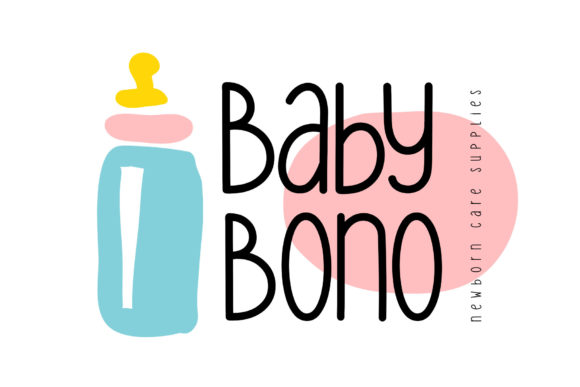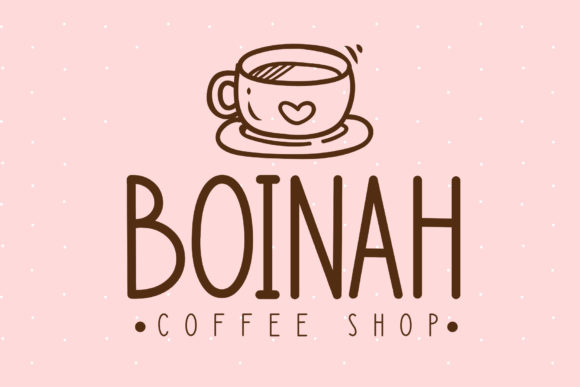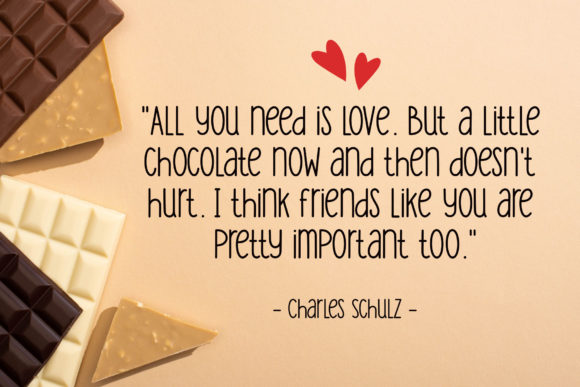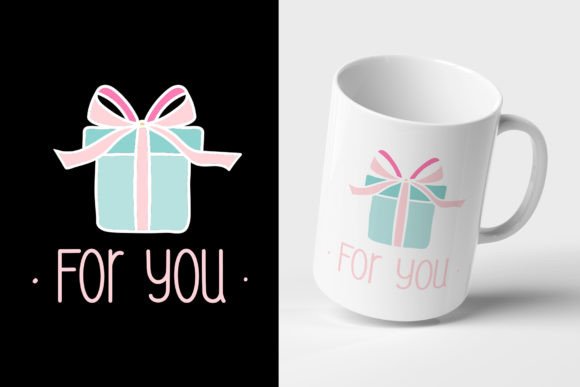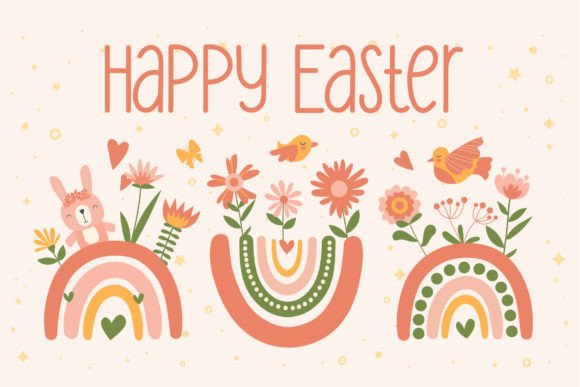
Introduction to Emily Cute Font
Have you ever stumbled upon a font that instantly brightens up your design and makes you feel like a kid again? That’s exactly what happens when you meet the adorable Emily Cute Font. This charming sans serif font is a game-changer for any creative project, from blog posts to branding and invitations. Its playful and joyful vibe makes it an instant favorite among designers.
As a designer, you’re always on the lookout for high-quality fonts that can elevate your designs and make them stand out. The Emily Cute Font is a valuable addition to your design resource library, offering a free download with a transparent background that makes it easy to use in any project. Its ease of reading and versatility make it an excellent choice for various applications.
Key Features of Emily Cute Font
- High-quality design resource perfect for creative projects, ideal for digital use.
- Transparent background option for seamless integration into your design.
- Unique, cute, and playful font style suitable for children’s books, cartoons, and other creative projects.
- Includes multiple font sizes and resolutions for optimal use in various design applications.
Honest Review: Emily Cute Font
As a designer, I’m always on the lookout for high-quality design resources to elevate my creative projects. The Emily Cute Font is one such resource that caught my attention. Let’s dive in and see what it has to offer.
- Adorable and whimsical design style that’s perfect for children’s books, nursery decorations, or any project that needs a touch of sweetness.
- High-quality font that’s crisp and clear, even at larger sizes.
- Transparent background option for easy use on any design background.
- May not be suitable for professional or corporate projects due to its playful design style.
- Limited character set, which may require additional font combinations for more extensive text.
Overall, the Emily Cute Font is a lovely addition to any designer’s toolkit. While it may have some limitations, its unique design style and high-quality rendering make it an excellent choice for creative projects that require a touch of whimsy.
Tips for Getting the Most Out of Emily Cute Font
Use Emily Cute Font for invitations, greeting cards, or other creative projects that require a playful touch.
Emily Cute Font is perfect for:
Invitations and greeting cards
Social media graphics
Blog posts and articles
Alternatives to Emily Cute Font
Pacifico is a beautiful, elegant font perfect for creative projects that require a touch of sophistication. It’s ideal for use in branding, logos, and titles that need a high-quality, elegant look. Pacifico is a free download and can be used with a transparent background, making it versatile for various design applications.
Compared to Emily Cute Font, Pacifico has a more refined and sophisticated feel, making it suitable for a wider range of design projects, from weddings to high-end branding.
Great Vibes is a fun, handwritten font that’s perfect for creative projects that require a playful and carefree vibe. It’s ideal for use in social media graphics, blog posts, and other design elements that need a touch of personality. Great Vibes is a free download and can be used with a transparent background, making it easy to customize.
Compared to Emily Cute Font, Great Vibes has a more casual and laid-back feel, making it suitable for design projects that require a relaxed and approachable tone.
Alex Brush is a beautiful, handwritten font that’s perfect for creative projects that require a touch of elegance and sophistication. It’s ideal for use in branding, logos, and titles that need a high-quality, elegant look. Alex Brush is a free download and can be used with a transparent background, making it versatile for various design applications.